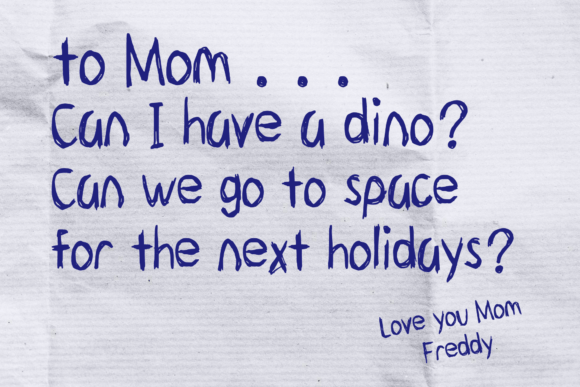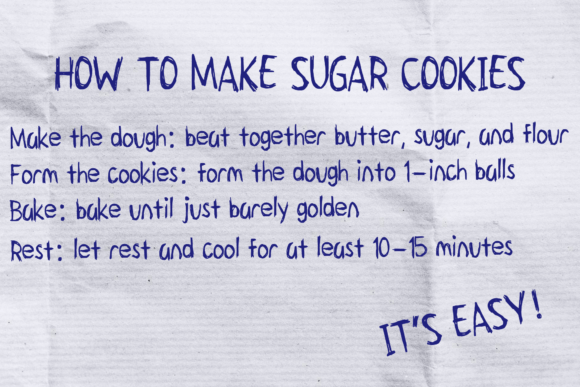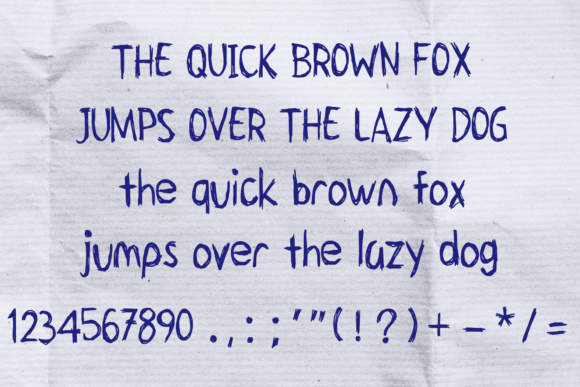
The Magic of Handwritten Charm
Remember the last time you doodled in your notebook, lost in the moment, as your pen danced across the page? The lines wobbled, the letters slanted, and your creativity flowed freely. That’s the magic of handwriting, and now you can capture that same essence in your designs with the Hand Pen Scribble Font.
This spontaneous, fun handwritten pen font is designed to elevate your design projects to new heights. With its unique, organic feel, you can add a super cool touch to anything from stickers and t-shirt designs to logo designs, magazine covers, comics, and more. Whether you’re a seasoned designer or just starting out, the Hand Pen Scribble Font is a valuable addition to your toolkit, guaranteed to bring a touch of personality to your work.
Key Features of Hand Pen Scribble Font
- Unique Hand-Drawn Style: This font features a unique hand-drawn style that mimics the look of handwritten text, adding a personal touch to any design project.
- Multi-Weight Font Family: The font family includes 6 weights (Thin, Light, Regular, Medium, Bold, and Black), providing flexibility for a wide range of design applications.
- Supports Latin and Cyrillic Scripts: The font supports a wide range of languages, including Latin and Cyrillic scripts, making it suitable for global design projects.
- Perfect for Handwritten and Hand-Drawn Designs: The Hand Pen Scribble Font is ideal for creating a handwritten or hand-drawn look in designs, such as invitations, posters, and business cards.
Hand Pen Scribble Font Review
When I first laid eyes on the Hand Pen Scribble Font, I was immediately drawn in by its unique, handwritten feel. ✨ The font’s imperfections and variations in line width and stroke give it a charming, organic look that’s perfect for adding a personal touch to designs. ✨ The font is also incredibly versatile, making it suitable for a wide range of applications, from logos and branding to social media graphics and marketing materials.
One of the things that really stands out about Hand Pen Scribble Font is its ability to convey a sense of emotion and personality. ✨ Whether you’re trying to create a friendly, approachable vibe or a more professional, polished look, this font is sure to deliver.
- ⚠️ Limited character set: The font’s character set is relatively limited, which may make it difficult to use in situations where you need to typeset long blocks of text.
- ⚠️ Not ideal for small font sizes: Due to its handwritten nature, the font may become difficult to read at very small font sizes.
Overall, I’m really impressed with the Hand Pen Scribble Font. While it may have some limitations, its unique charm and versatility make it a valuable addition to any designer’s toolkit. Whether you’re looking to add a personal touch to your designs or simply want a font that stands out from the crowd, this font is definitely worth checking out.
Some tips for getting the most out of Hand Pen Scribble Font include:
- Using it for hand-drawn or handwritten text effects.
- Combining it with other fonts for a unique look.
- Using it for titles or headings to add a touch of personality.
- Experimenting with different font sizes and colors to achieve the desired effect.
Alternatives to Hand Pen Scribble Font
Great Vibes is a modern calligraphy font that mimics the look of hand-painted letters. It’s perfect for use in headings and titles, and can add a touch of elegance to any design. Unlike Hand Pen Scribble Font, Great Vibes is more polished and refined, making it suitable for high-end branding and advertising.
Lobster is a cursive script font that’s similar to Hand Pen Scribble Font in terms of its playful and casual feel. However, Lobster is more versatile and can be used in a wider range of contexts, from casual blogs to formal invitations. It’s also more readable than Hand Pen Scribble Font, making it a good choice for longer blocks of text.
Can I customize Hand Pen Scribble Font to fit my specific design needs?
Yes, Hand Pen Scribble Font can be customized to some extent. However, due to its hand-drawn nature, it may not be possible to make significant changes to the font’s structure or design. Designers may be able to adjust font size, color, and other basic attributes, but any major modifications may require creating a custom font from scratch.